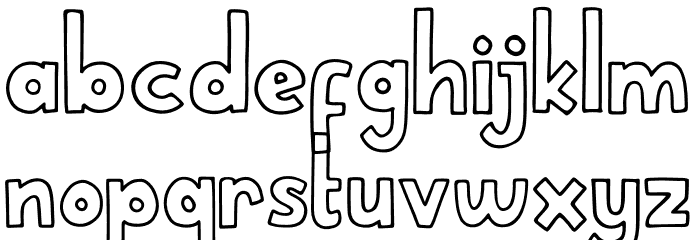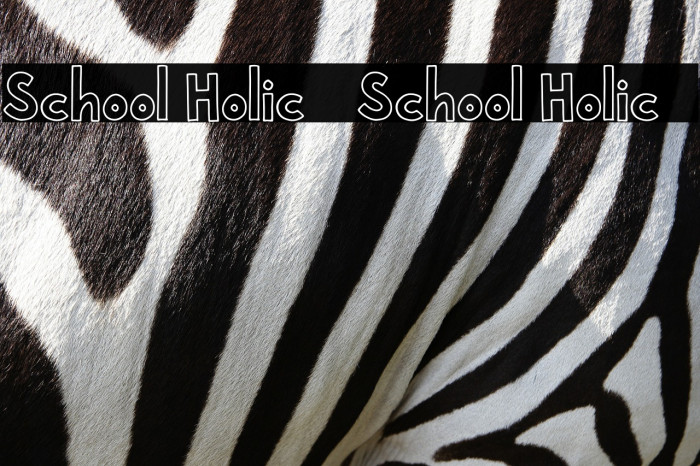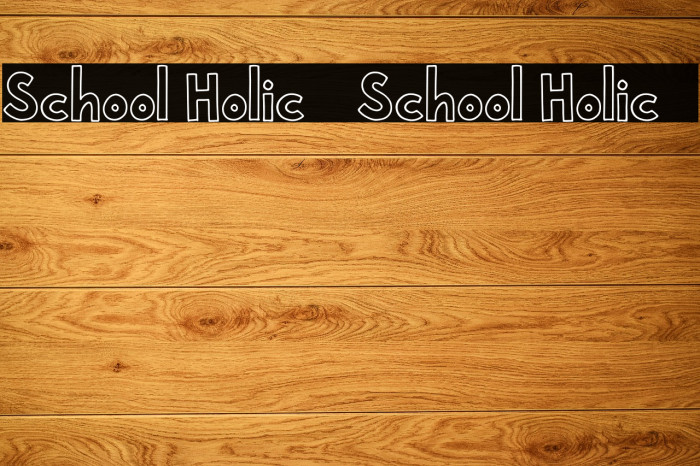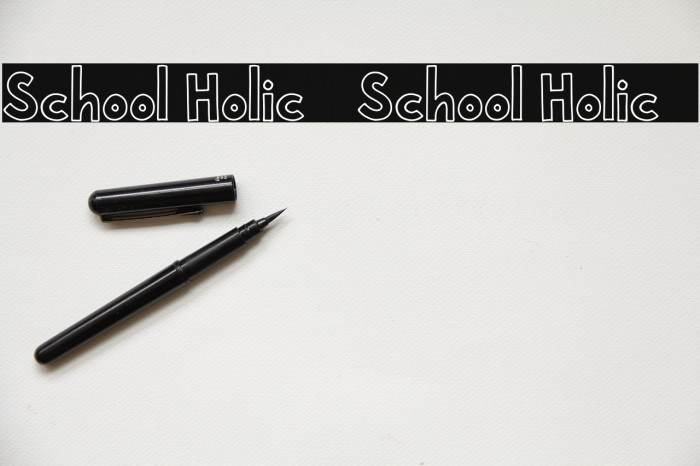
School Holic 1 Font
This font features a playful and bold outline style, with each character having a hand-drawn appearance. The uppercase letters are uniformly bold with rounded edges, giving them a friendly and approachable look. The lowercase letters maintain the same playful aesthetic, with some characters like 'g' and 'j' having distinctive loops that add to the font's charm. The numbers and special characters are consistent with the overall style, ensuring a cohesive look across all text. This font is ideal for projects that require a fun and informal touch.
A playful, bold outline font with a hand-drawn aesthetic.
- Proposed Projects: Ideal for children's books, educational materials, playful branding, and creative posters.
- Overall Style: Playful, Hand-drawn
- Use Case: Headlines, Posters, Branding